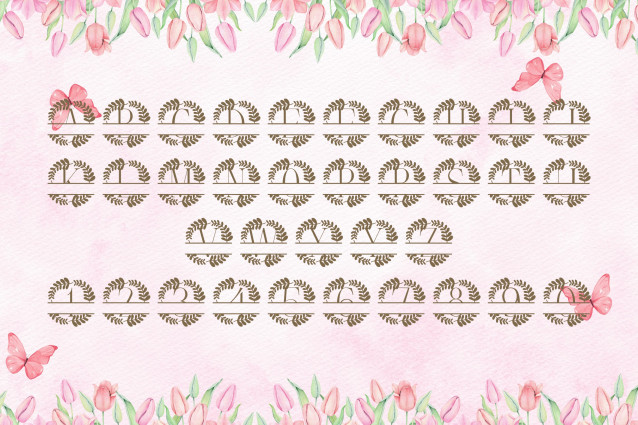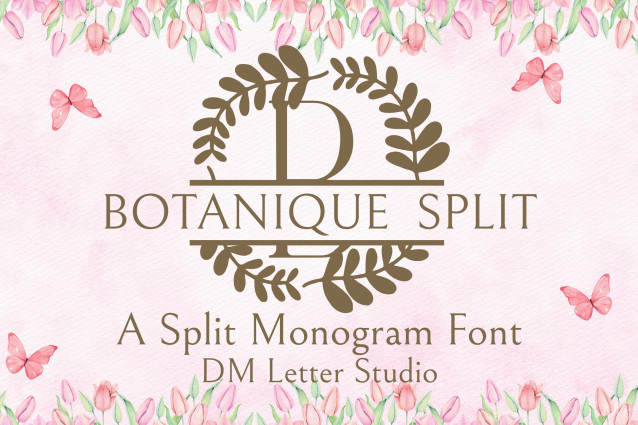
Botanique Split Monogram Font
Botanique Split Monogram Font is a refined serif monogram font enhanced with graceful botanical flourishes and a clean horizontal split, ideal for inserting personalized names or initials. Each uppercase letter features delicate leaf and vine accents, perfect for wedding signage, custom gifts, boutique branding, and nature-inspired design projects. Its balance of structure and organic elegance makes it a timeless addition to any creative toolkit.